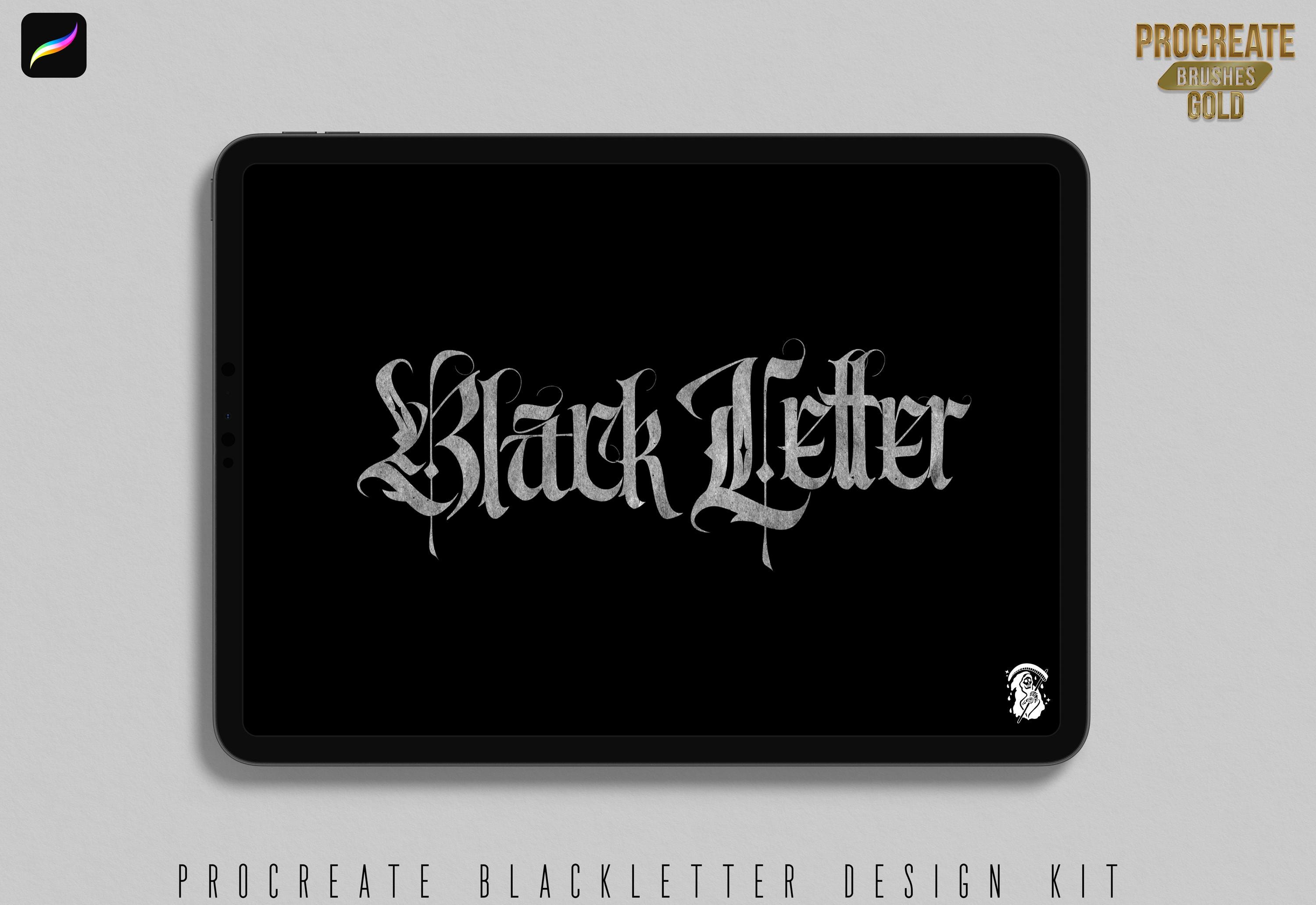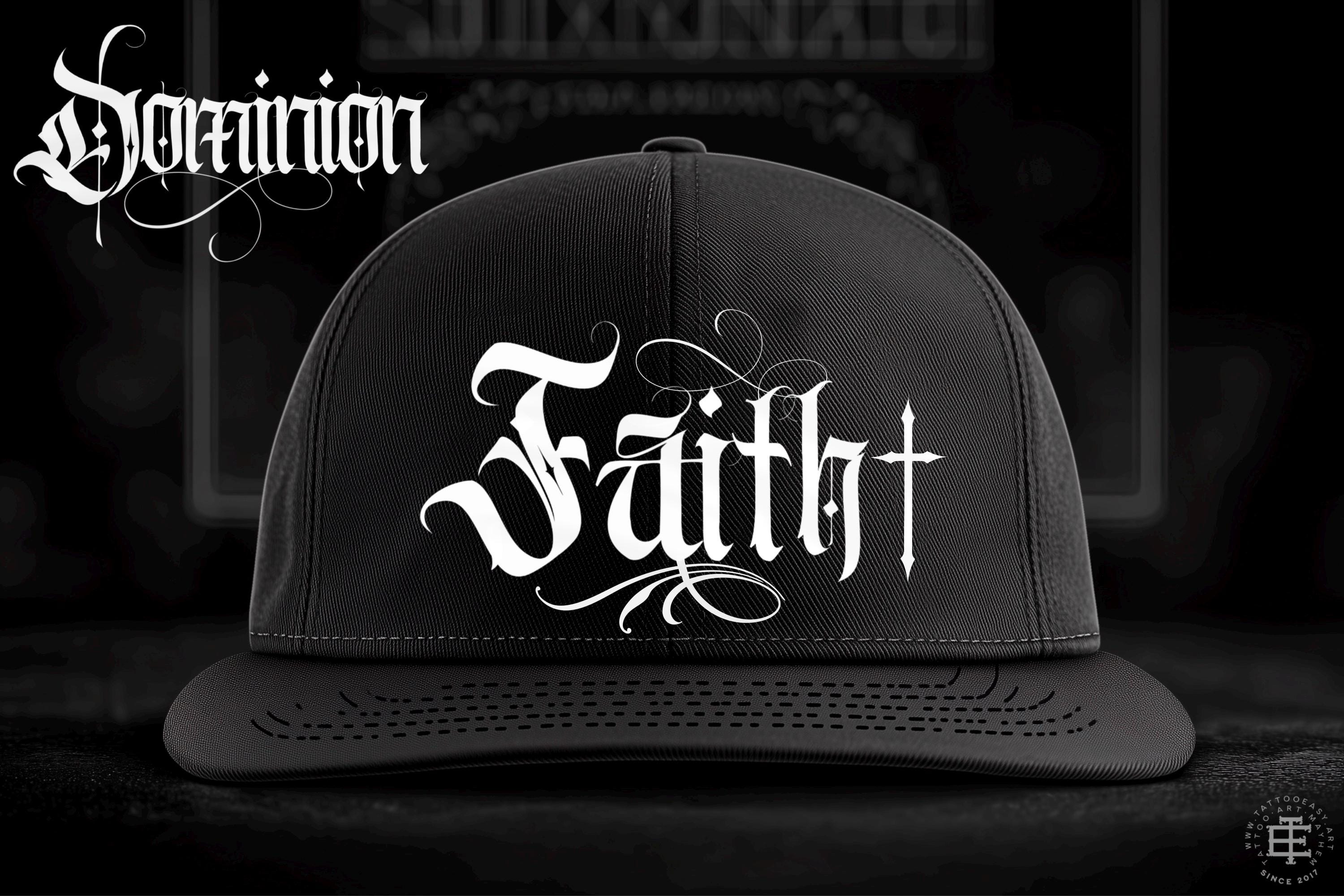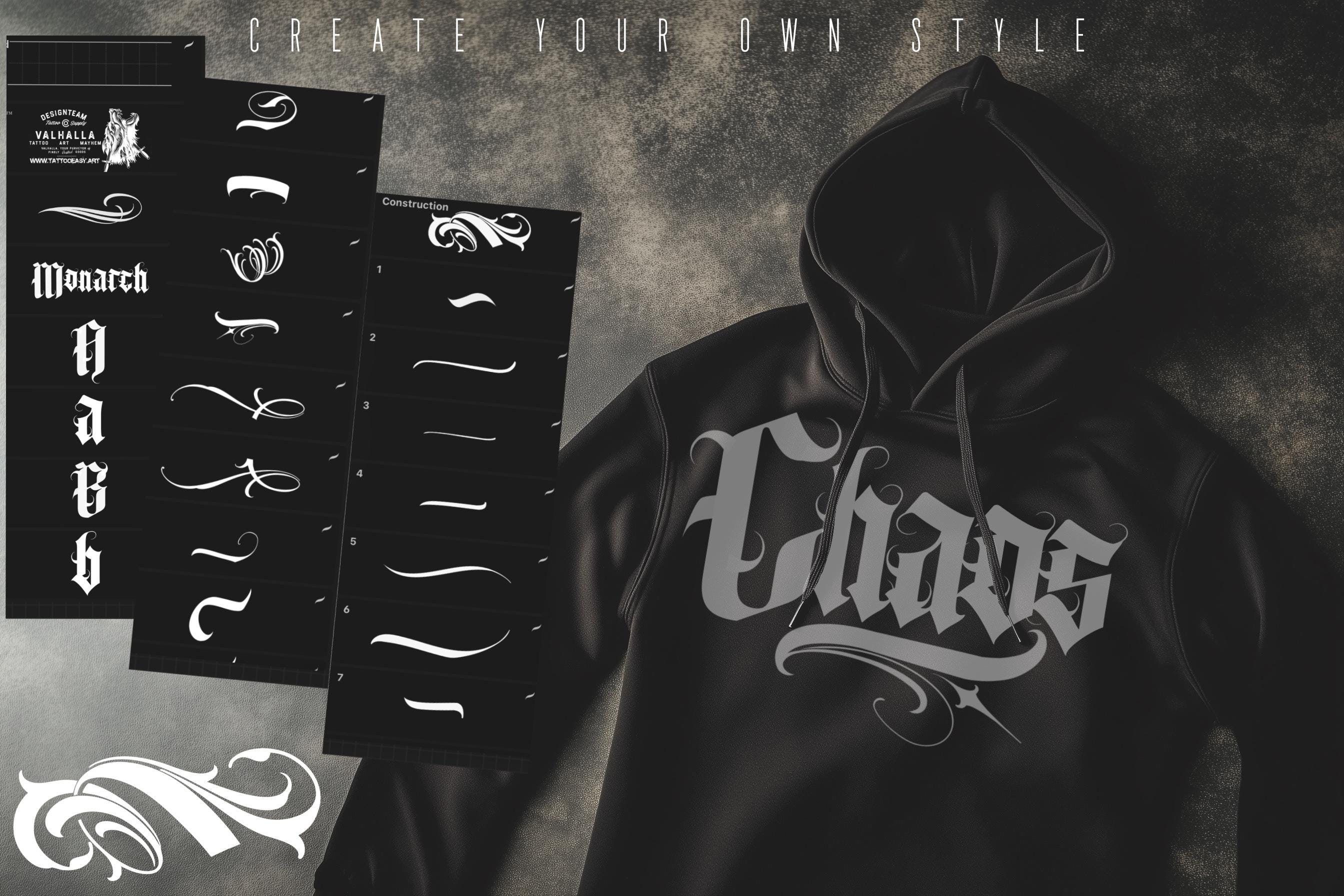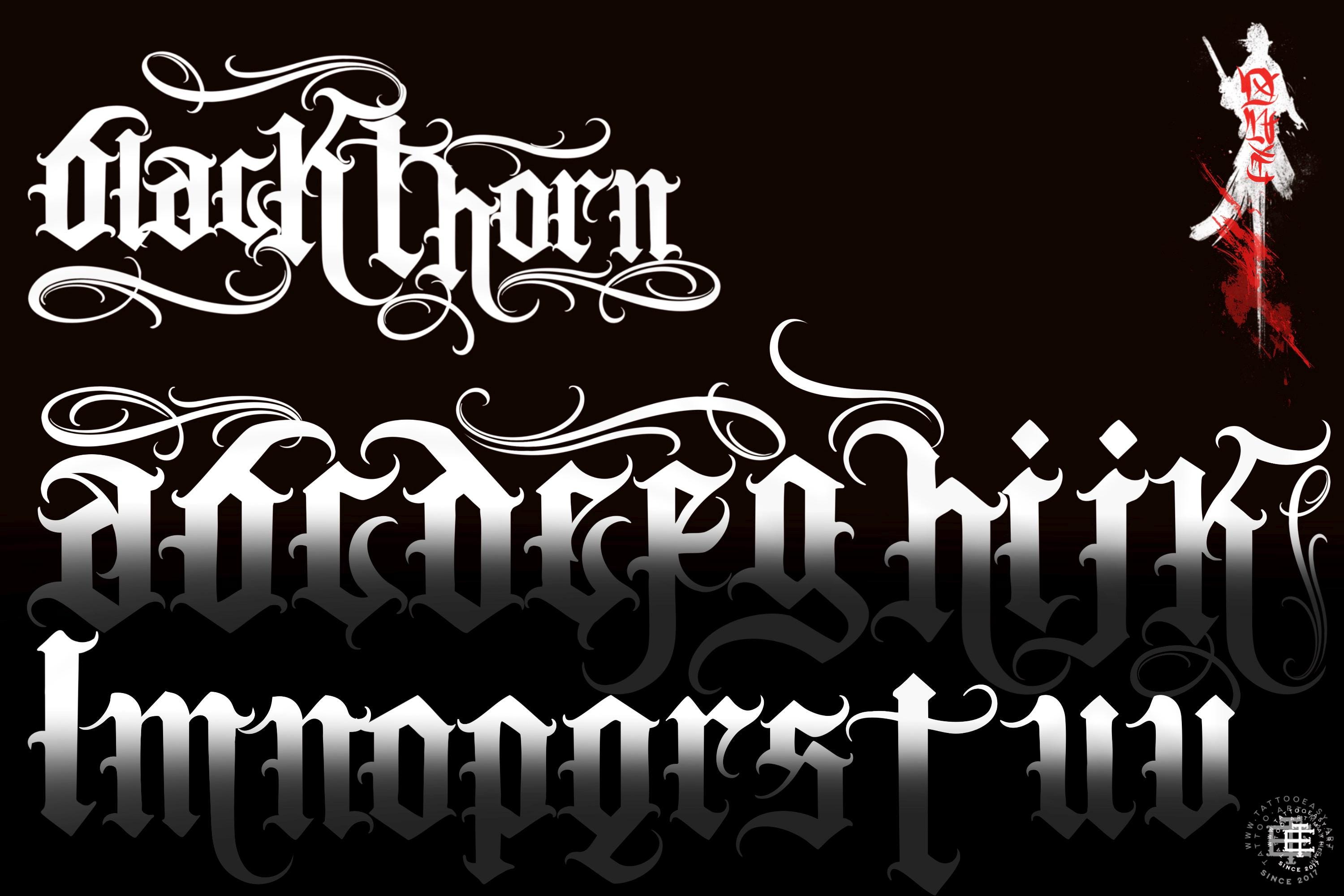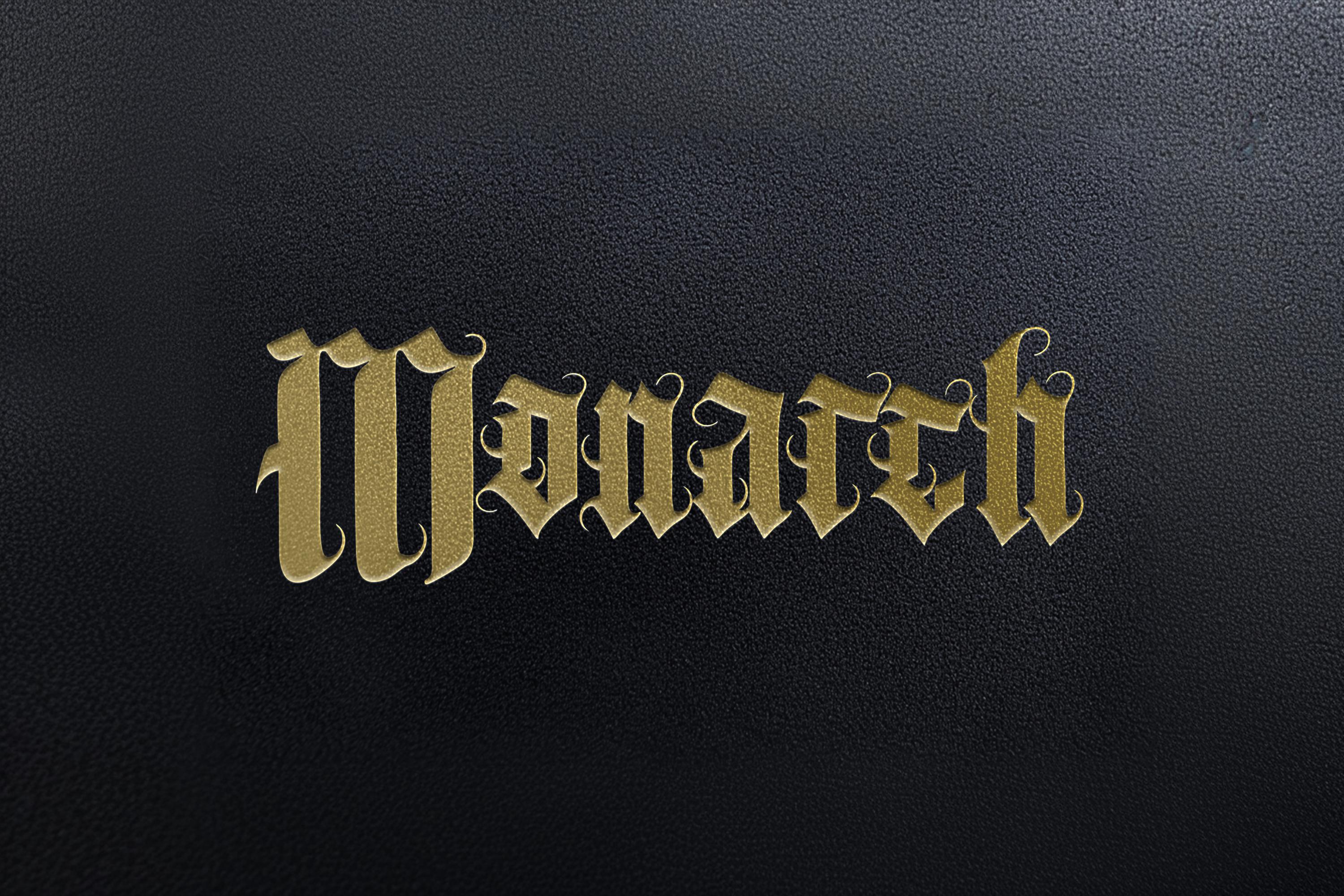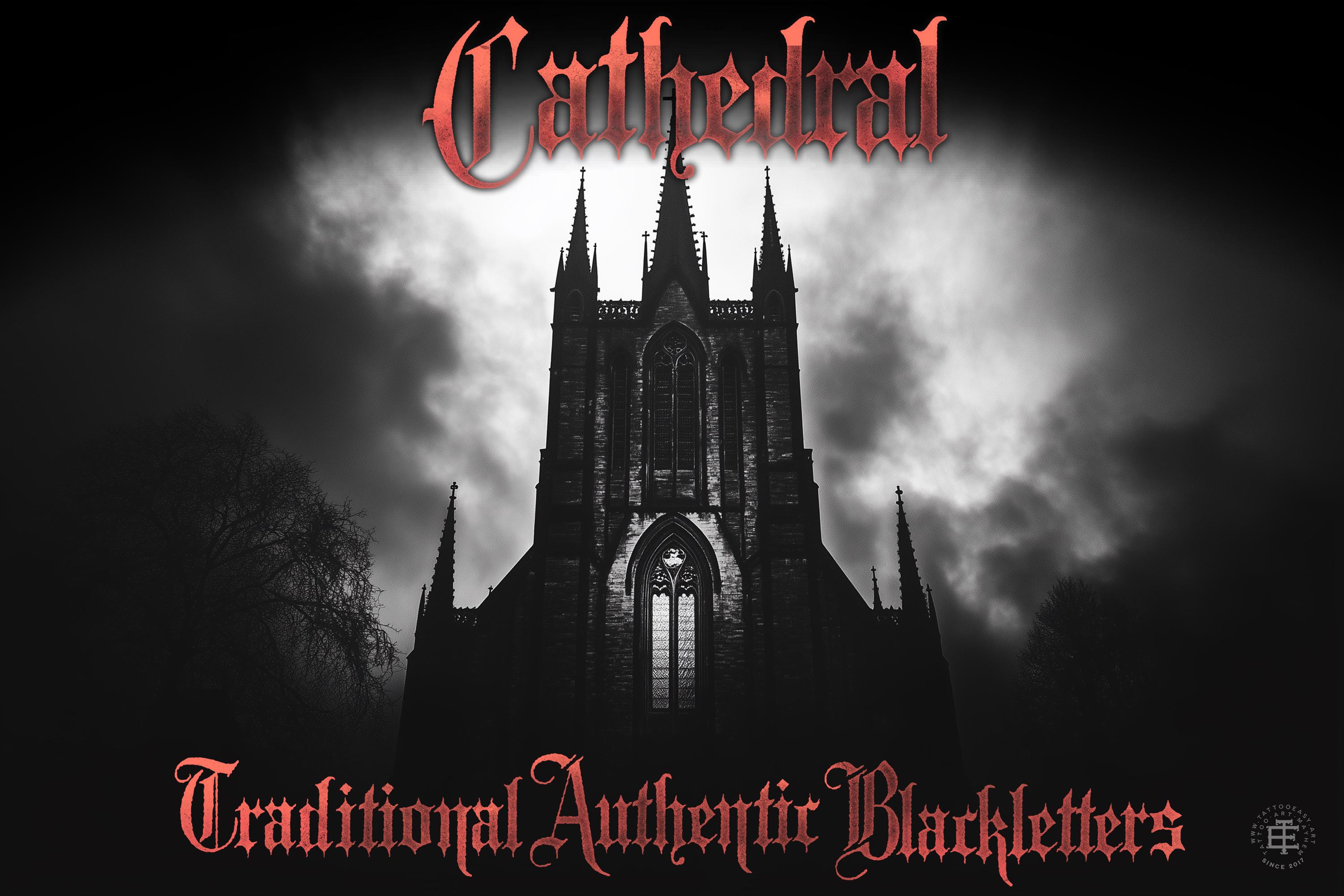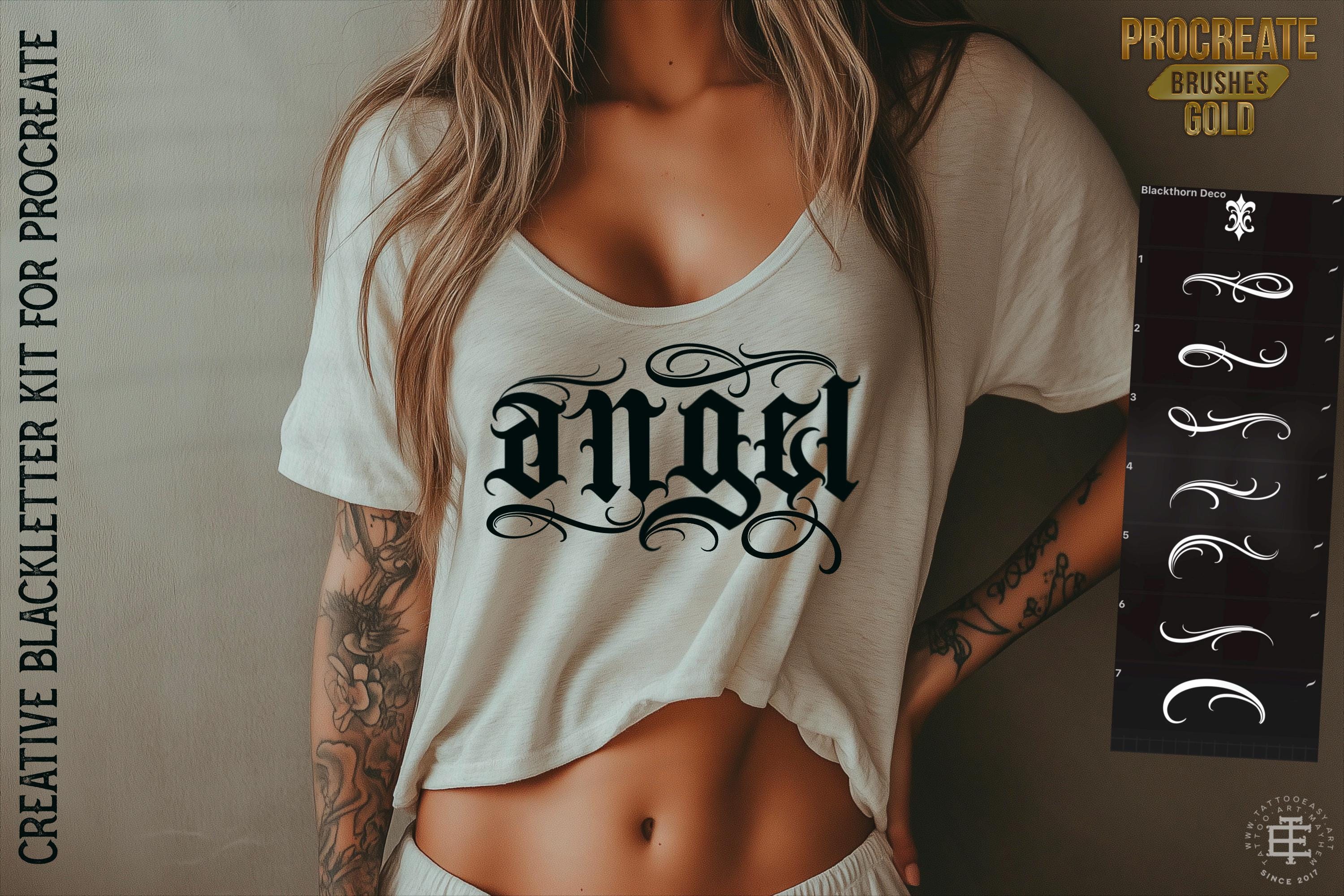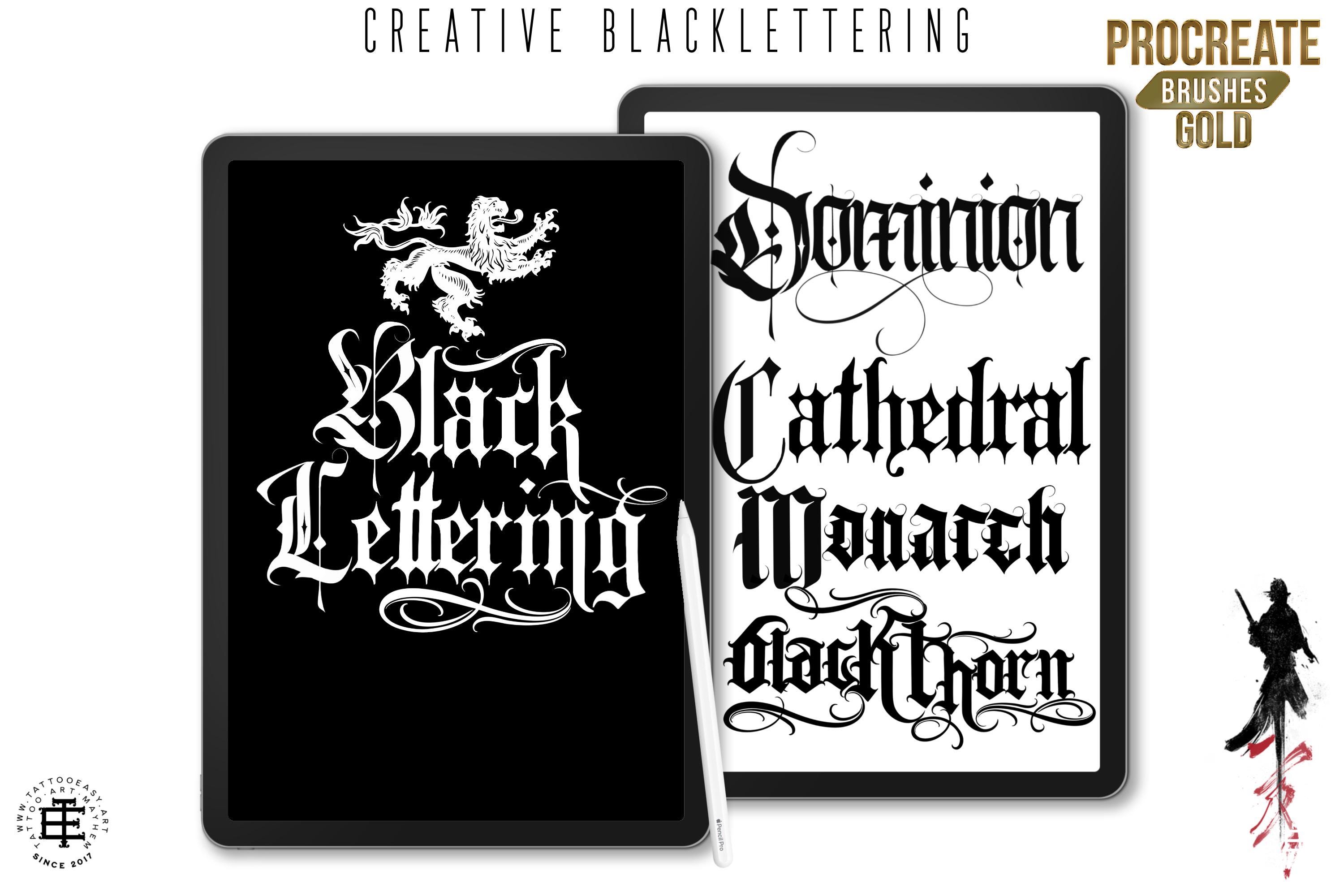
Blacklettering for Procreate Vol.1 by @onI.Letterz - Design Team Valhalla, Sweden
The Ultimate Blackletter Tattoo Lettering Design Kit Master the art of classic tattoo typography with this comprehensive Blackletter stamp brush and PNG design kit. Carefully curated to capture the bold, intricate aesthetic of Gothic and Old English calligraphy, this typographic reference theme is an absolute essential for any digital creator's library. Whether you are a professional tattoo artist mapping out a complex chest piece or an enthusiast looking for intricate, text-based coloring projects, these assets deliver flawless, razor-sharp lettering every single time.
Perfect For Multiple Creative Uses: This bundle perfectly bridges the gap between professional shop typography and personal creative hobbies. Tattoo artists can utilize these traditional Blackletter stencils to quickly spell out custom names, build script flash sheets, or test script placements on digital client photographs. Meanwhile, digital illustrators, merchandise designers, and craft enthusiasts can use the universal PNG files to design gothic streetwear apparel, create print-on-demand goods, or print out relaxing, adult-friendly typographic coloring pages.
Carefully crafted Blackletters made for Procreate to ensure the highest attention to detail. The complete alphabet—both uppercase and lowercase—is designed for effortless combination, making it easy for you to fuse letters seamlessly into your own unique pieces.